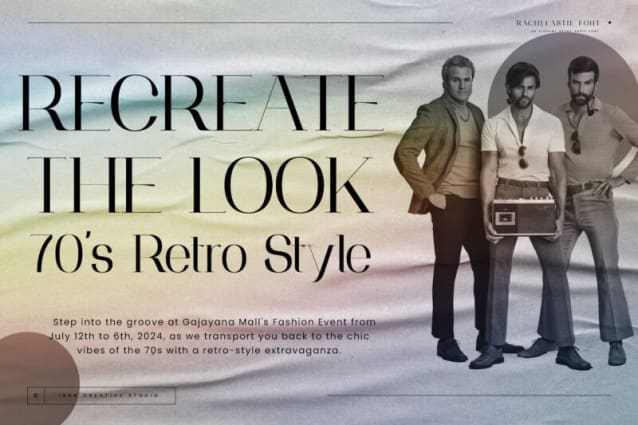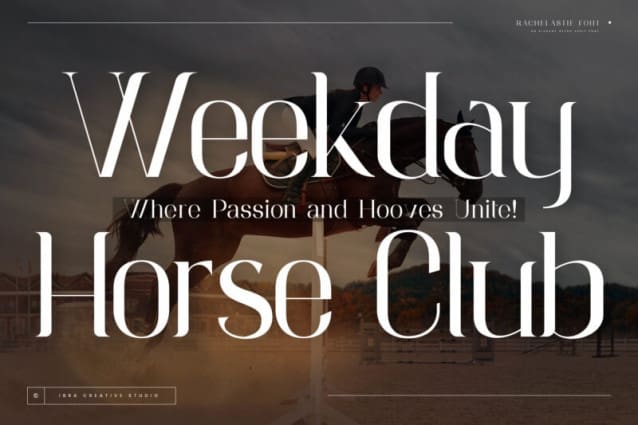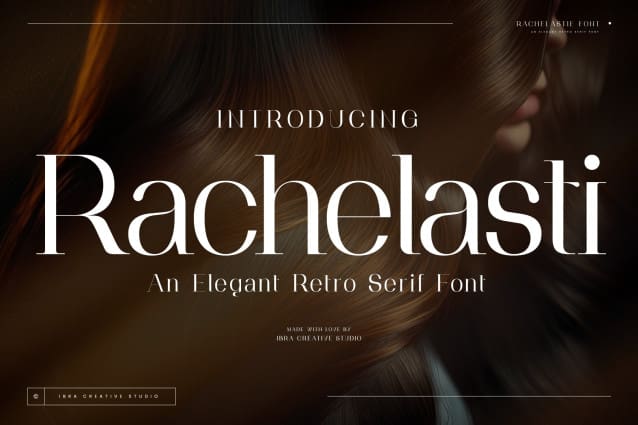
Rachelasti Font
Rachelasti Font is an exquisite and timeless serif font that effortlessly merges elegance with a nostalgic retro charm. With its gracefully elongated letterforms and subtle, sophisticated serifs, Rachelasti evokes a sense of refined vintage aesthetics, making it a perfect choice for projects that demand a touch of classic sophistication. The typeface exudes a distinct personality, blending a timeless appeal with a modern edge, making it versatile for various design applications. Whether used in editorial layouts, branding, or signage, Rachelasti’s carefully crafted details and balanced proportions convey a sense of understated luxury and enduring style.